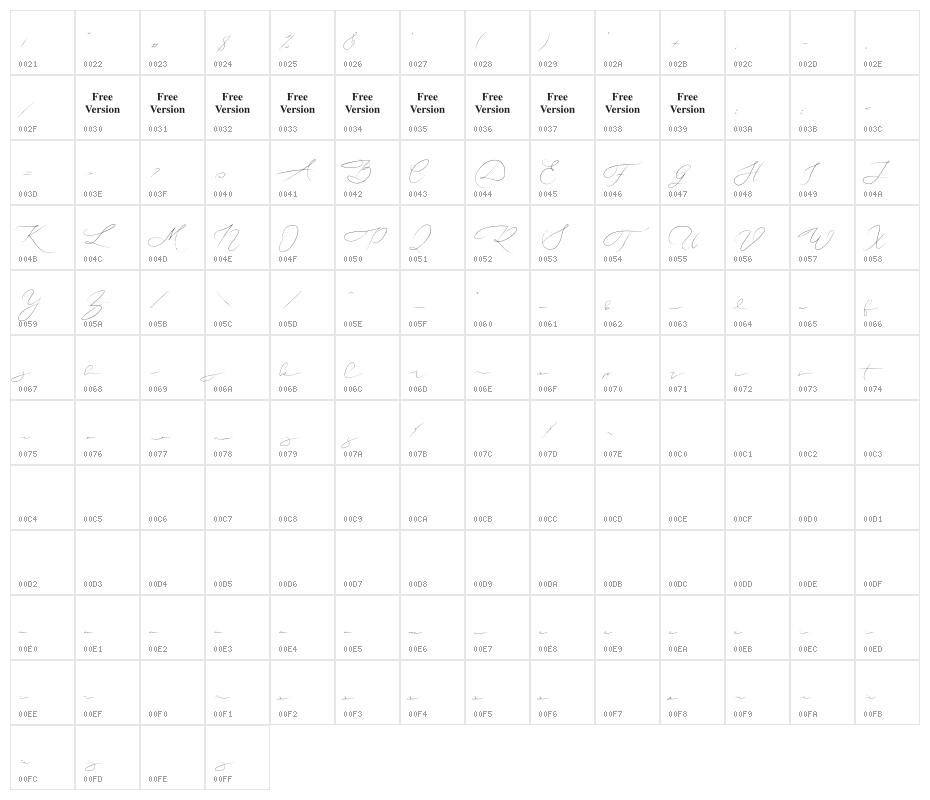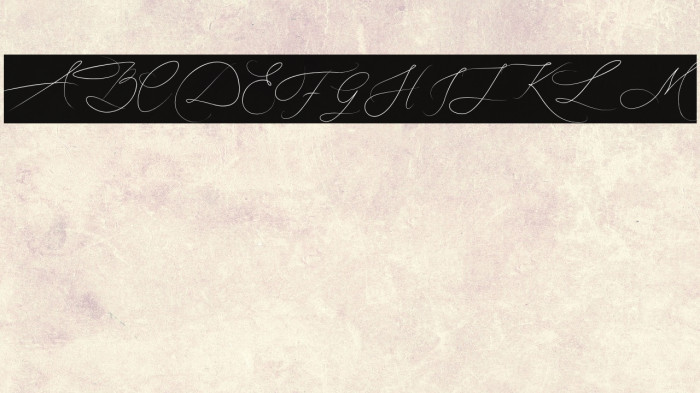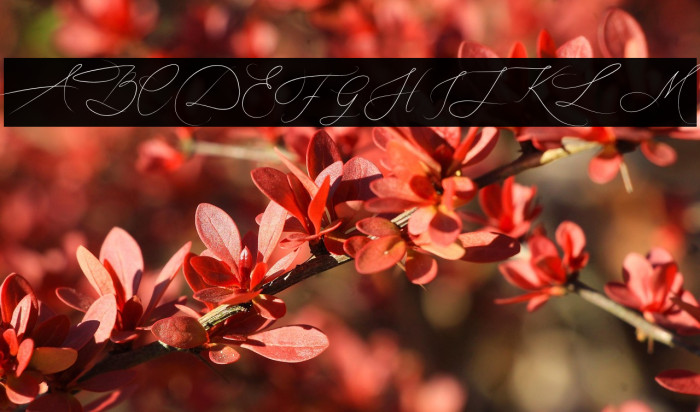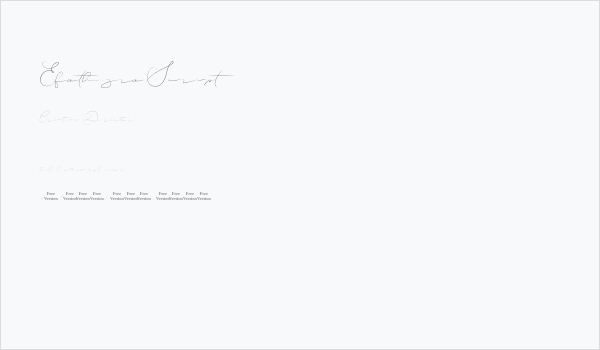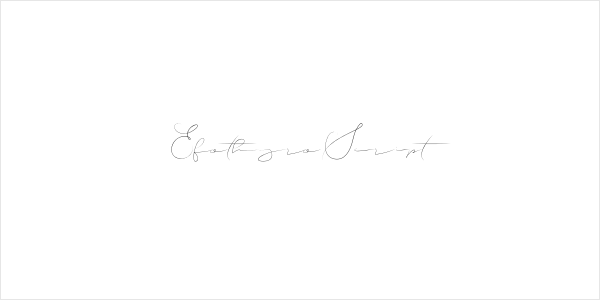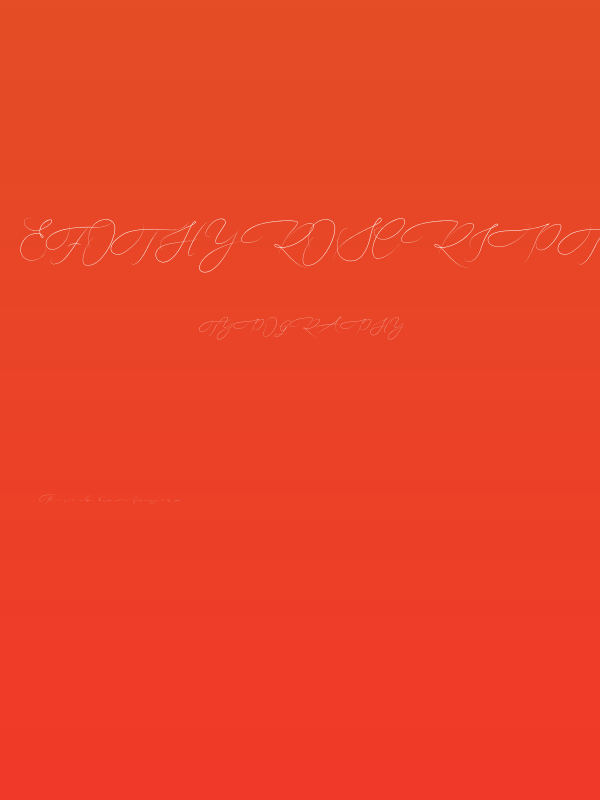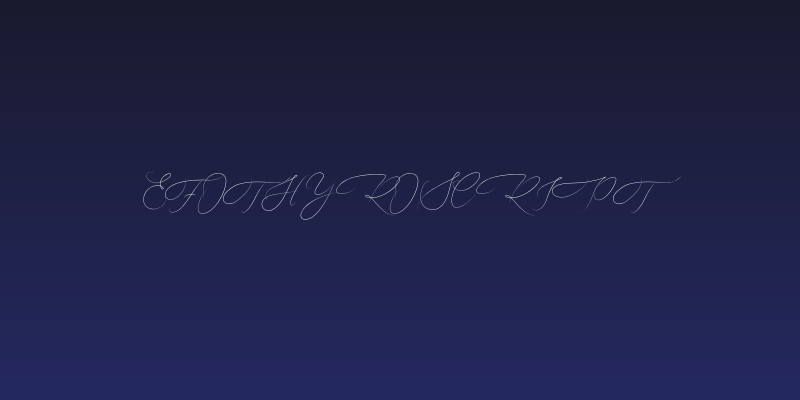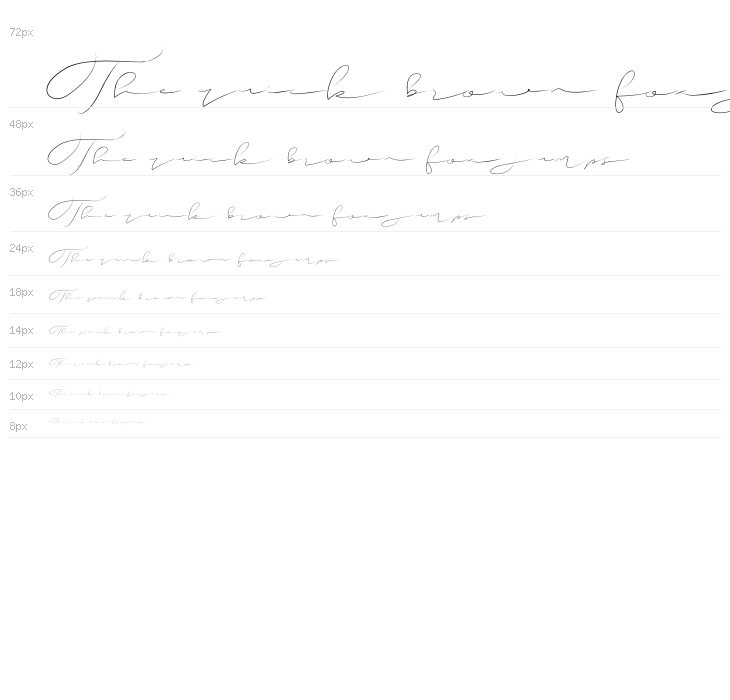
EfothyroScript Font
EfothyroScript Description
This elegant script font features a delicate and flowing style, characterized by its thin, graceful strokes and cursive letterforms. The uppercase letters exhibit a sophisticated flair with extended ascenders and descenders, creating a sense of movement and fluidity. The lowercase letters maintain a consistent flow, enhancing the font's overall harmony. This font is perfect for projects that require a touch of elegance and sophistication, such as wedding invitations, formal event programs, and high-end branding. The numerals and special characters are designed to complement the script style, ensuring a cohesive look across all text elements.
| Overall Style | Elegant |
| Use Case | Logos, Invitations, Branding |
| Proposed Projects | Ideal for wedding invitations, formal event programs, and luxury branding. |